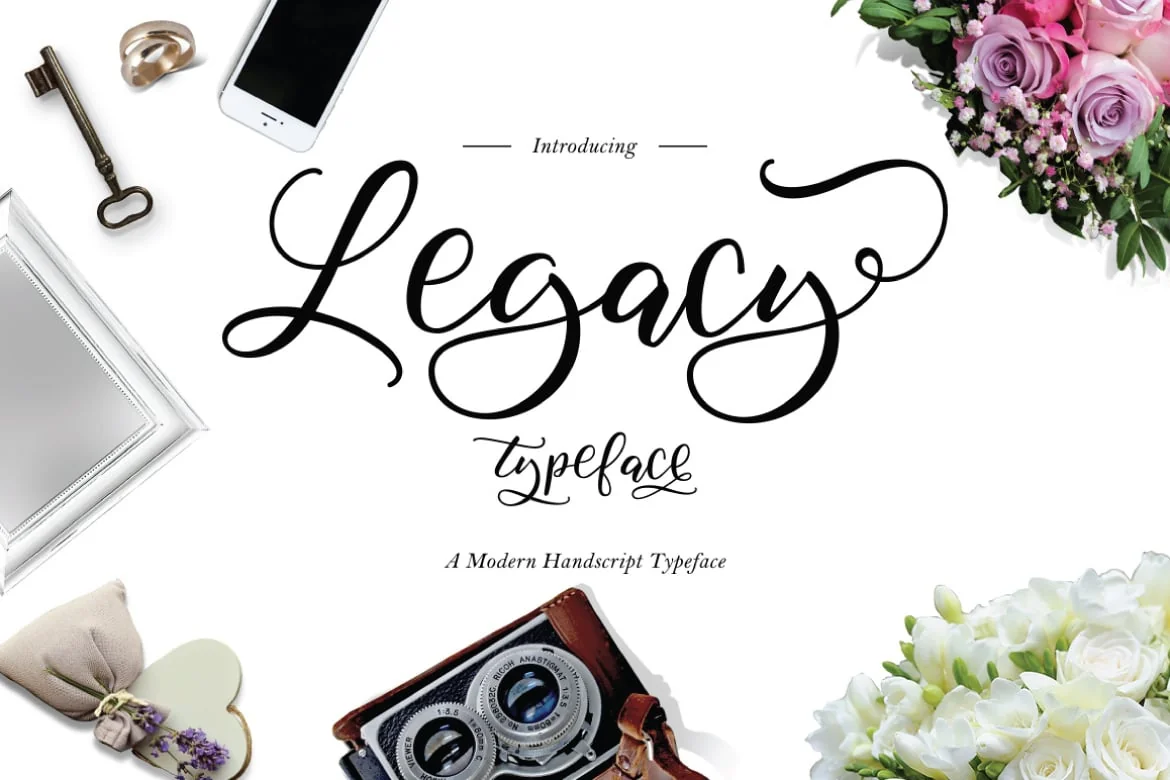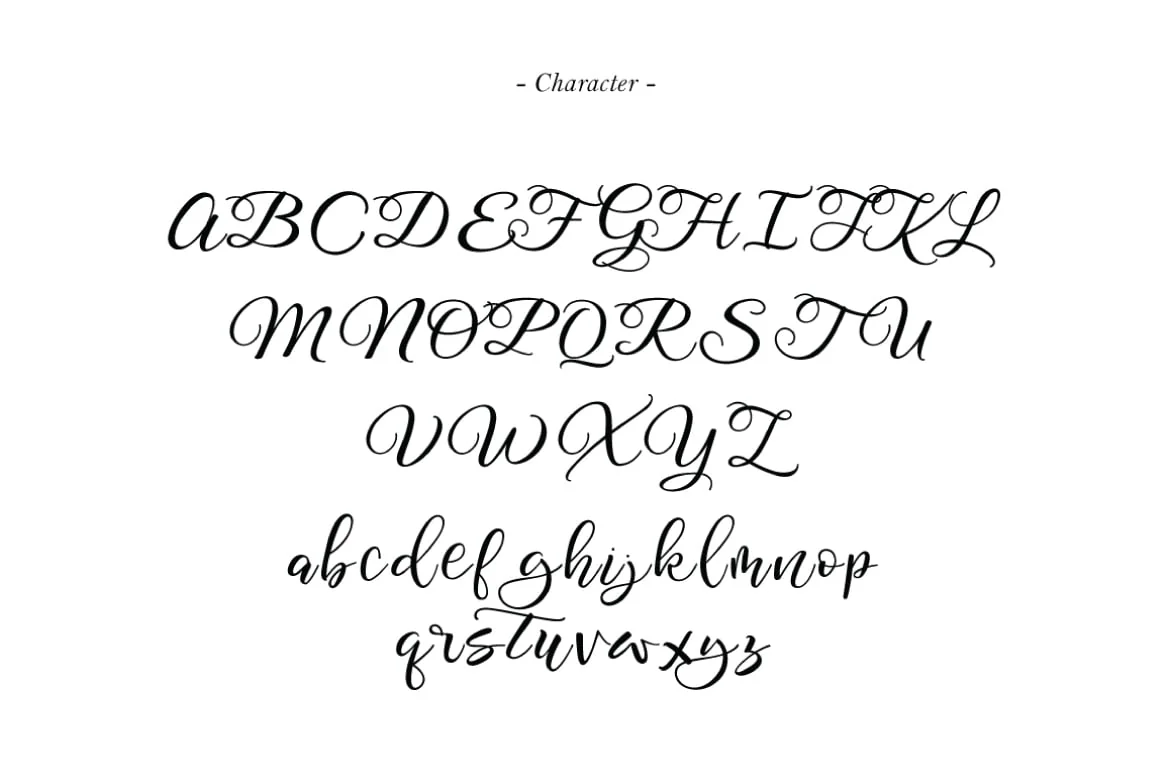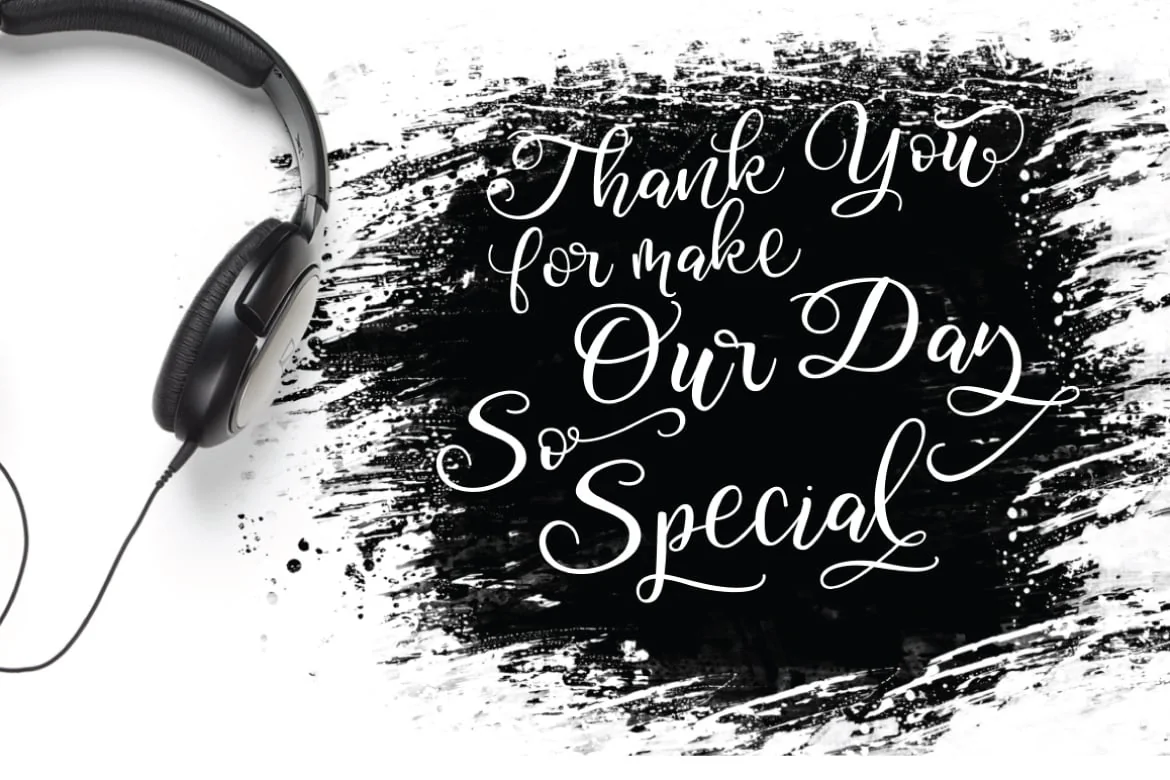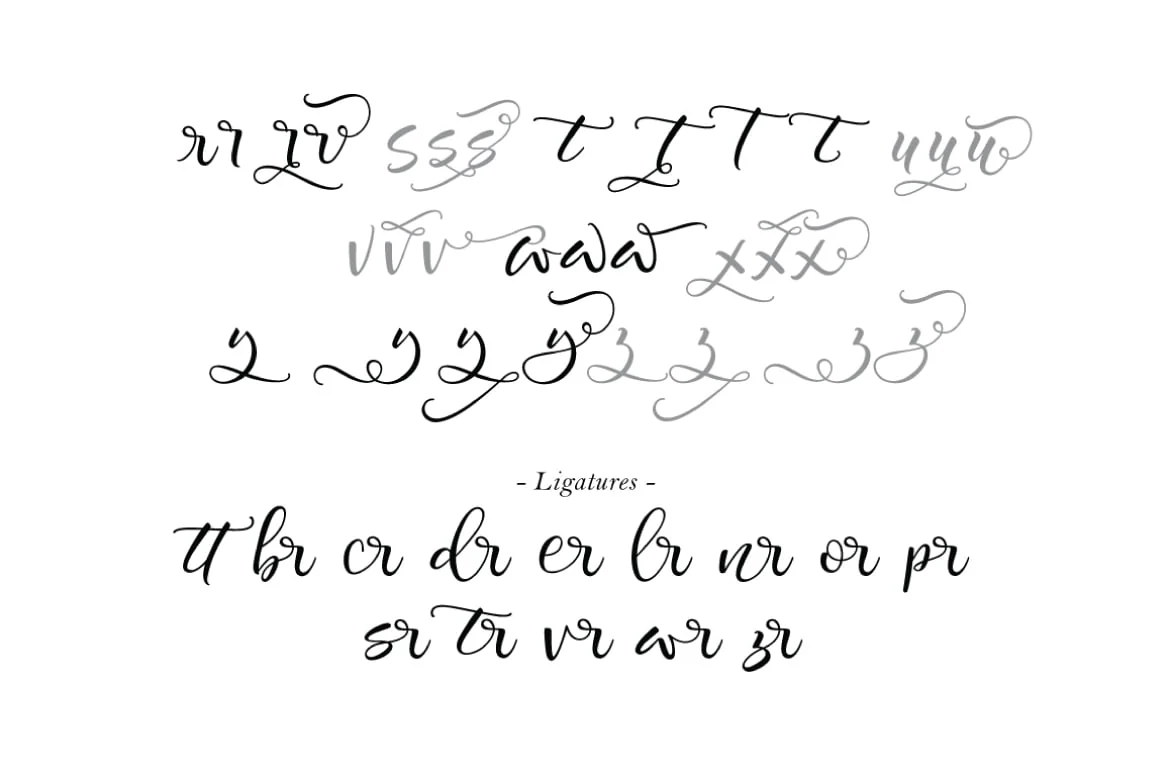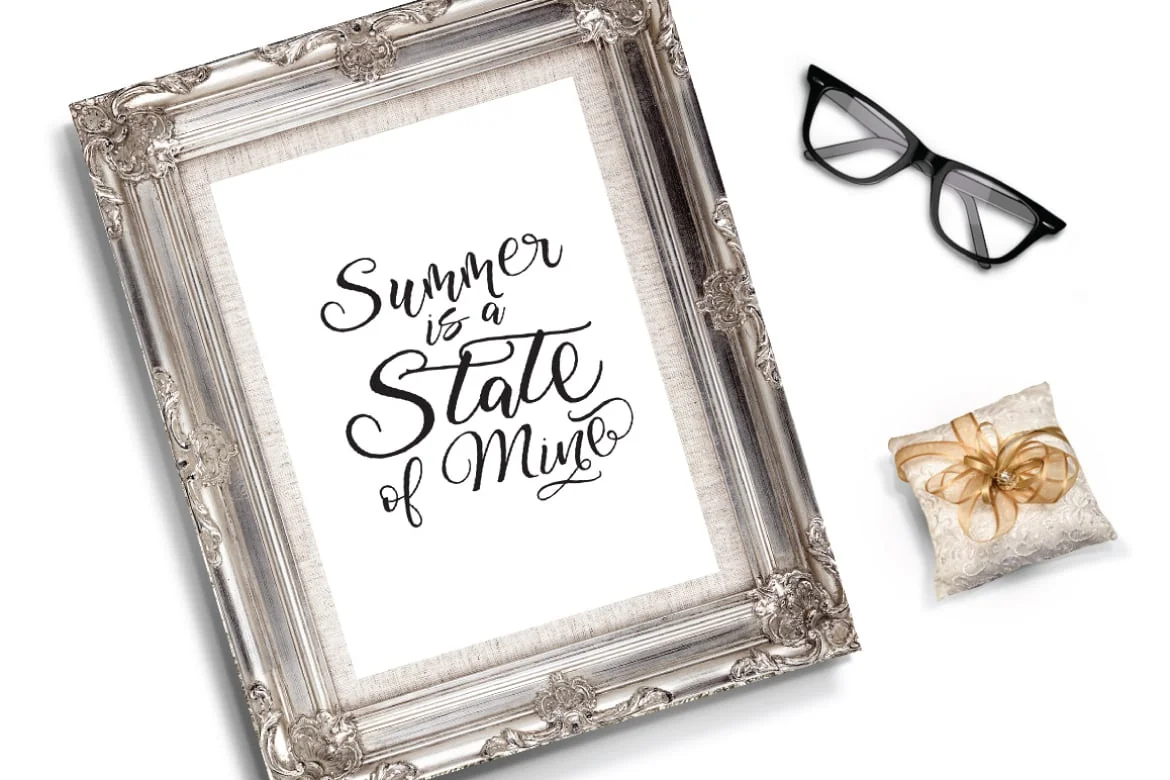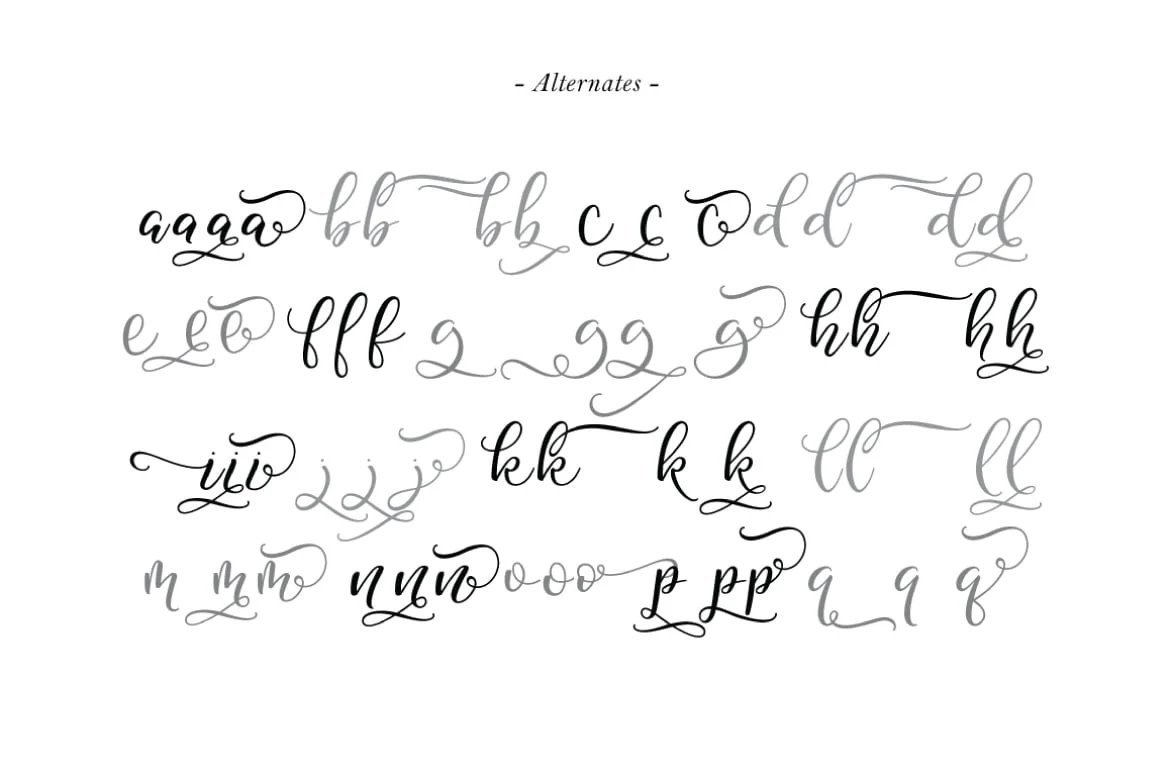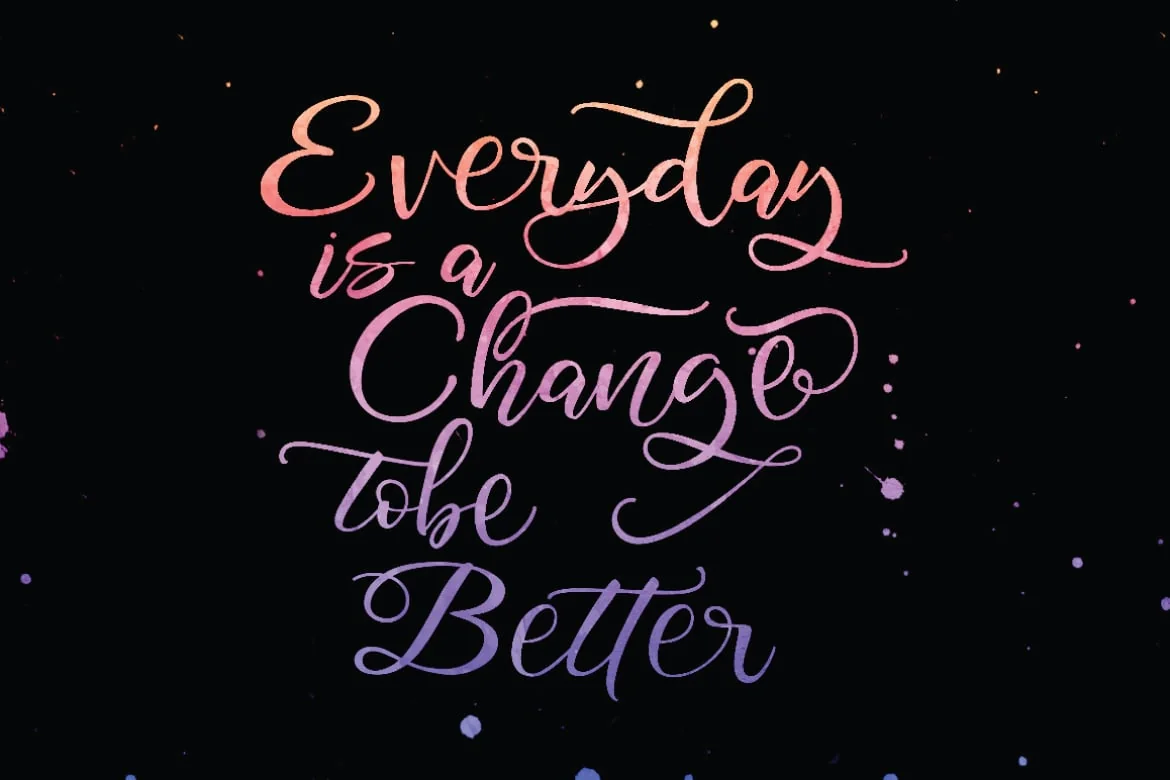
Legacy Typeface
Hello world..!! this is Legacy typeface, simple and easy to create awesome lettering, just type your words and then you will immediately see the great results.
The Legacy Script features:
- Uppercase & lowercase
- Stylistic alternatives & swashes
- Initials & finals
- International characters (Multilingual)
- Punctuation & symbols